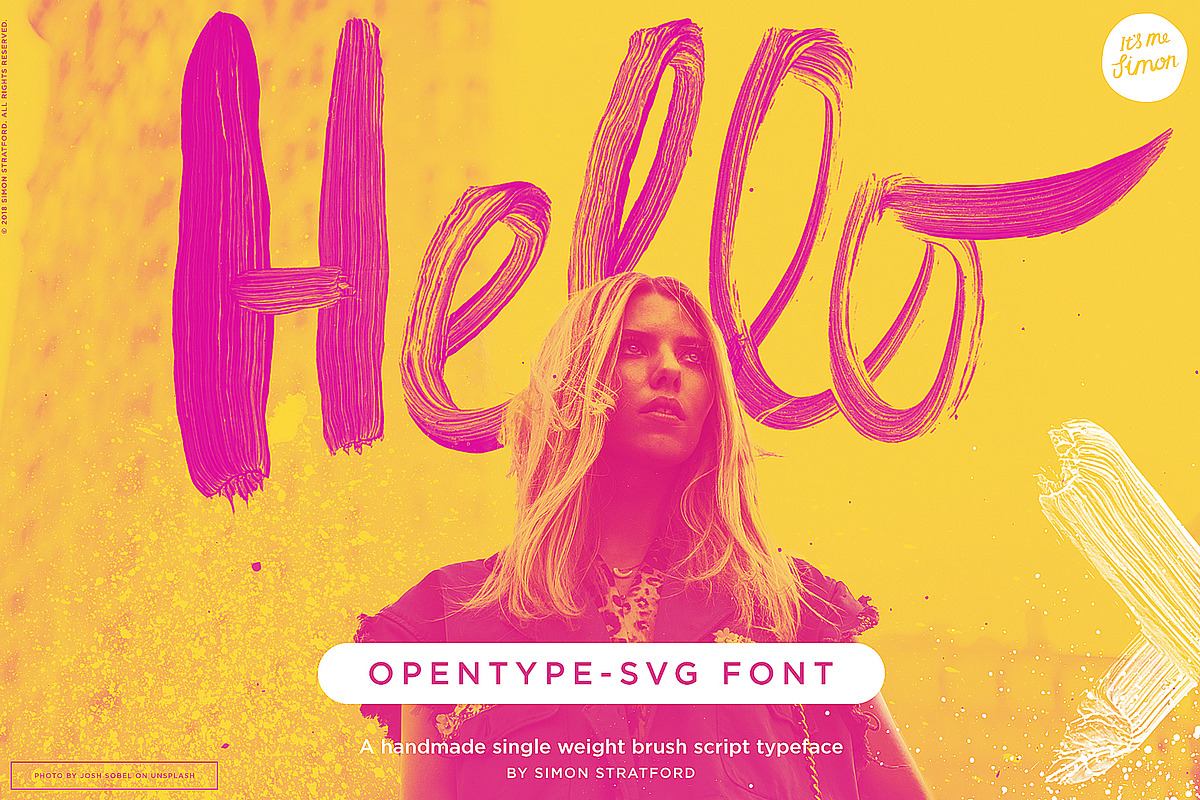
Script font Hello Monday SVG Free Download
Script Font Hello Monday SVG Free Download
Script Font Hello Monday SVG Free Download is a fun and stylish script typeface designed to bring a modern and lively touch to your designs. Featuring smooth curves and elegant lines, this font is perfect for personal branding, invitations, greeting cards, social media graphics, and any design that needs a personal and artistic touch.
As an SVG font, Hello Monday brings additional design elements, including intricate details and color, making it ideal for use in more vibrant, creative projects. It’s perfect for designs that need a handwritten, organic feel but with the added bonus of visual interest that traditional fonts don’t offer.
The font includes uppercase and lowercase letters, numerals, punctuation, and multilingual support. It works beautifully in both digital and print designs, especially when used in programs that support OpenType-SVG fonts like Adobe Illustrator or Photoshop.